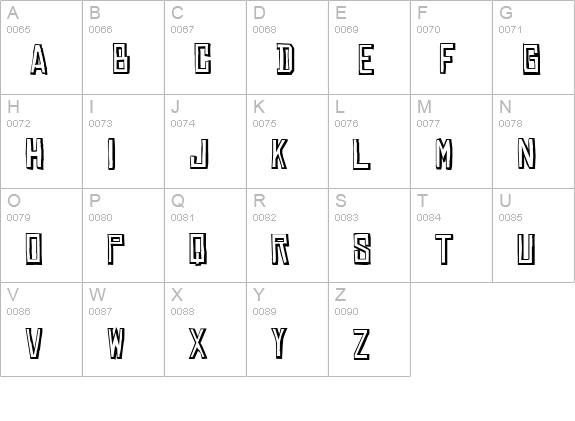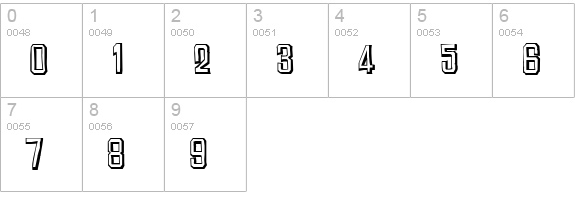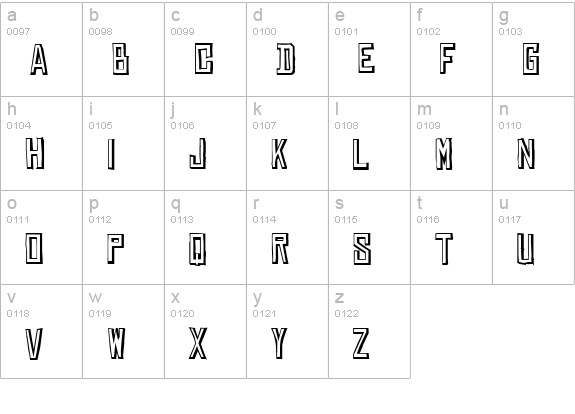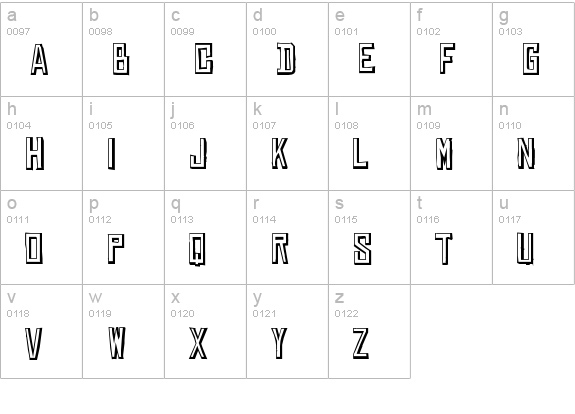
Chinese Rocks Shaded Font Details
Chinese Rocks Shaded font is a stunning display typeface that adds a touch of elegance and sophistication to any design project. With its intricate detailing and unique shading effect, this font is perfect for creating eye-catching headlines, logos, and invitations. Best of all, Chinese Rocks Shaded font is available for free download at FontsMarket.com. Whether you're a seasoned designer looking to add a new dimension to your work or a beginner exploring different typefaces, this font is a versatile and stylish choice that will surely stand out. Download it today and elevate your designs with this beautiful and intricate font.